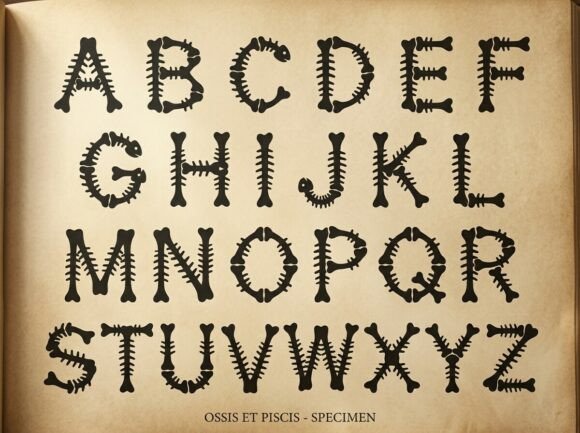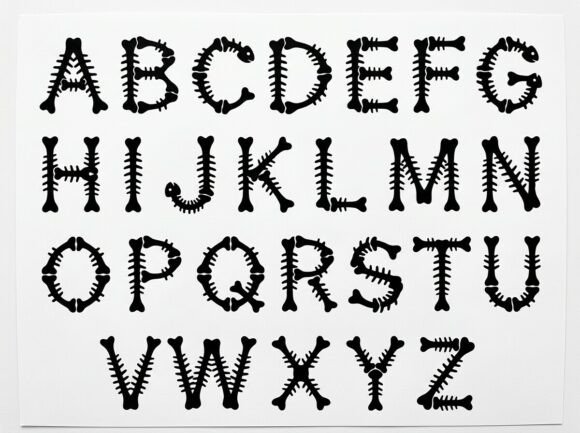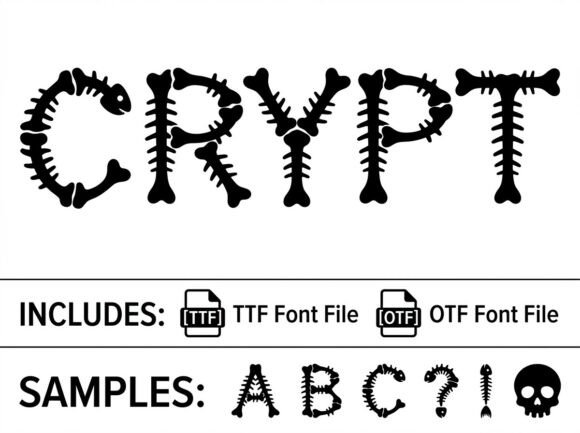
Unearth a Chilling Aesthetic with Crypt Font: The Ultimate Display Typeface for the Dark and Macabre
In the realm of typography, few fonts evoke the same level of eeriness and fascination as the Crypt font. This bone-chilling display typeface is meticulously crafted for those who dare to venture into the dark and macabre. Each letter in this unique font is constructed from anatomical silhouettes, featuring vertebrae, rib-like structures, and jointed bones that form a rhythmic, skeletal alphabet. The result is a raw, primeval silhouette that exudes an unyielding, skeletal strength, perfect for designers and crafters seeking to infuse their projects with a sense of handcrafted dread.
The Anatomy of Crypt Font
What sets Crypt font apart is its intricate design, where each letter is carefully constructed from anatomical elements. The vertebrae, rib-like structures, and jointed bones are not merely aesthetic choices; they are a deliberate design decision that gives the font its distinctive skeletal appearance. This attention to detail makes Crypt font an exceptional choice for projects that require a high level of uniqueness and character, such as horror movie titles, Halloween event branding, heavy metal album covers, and gothic-themed apparel.
Applications of Crypt Font
Crypt font’s versatility and distinctive aesthetic make it suitable for a wide range of applications. Here are a few ideas to get you started:
- Horror Movie Titles: Add a chilling touch to your horror movie titles with Crypt font. Its raw, primeval silhouette and high-contrast linework will set the tone for a terrifying cinematic experience.
- Halloween Event Branding: Create eye-catching Halloween event branding with Crypt font. Its skeletal alphabet will add a spooky flair to your posters, flyers, and social media promotions.
- Heavy Metal Album Covers: Give your heavy metal album covers a bold, edgy look with Crypt font. Its rugged, skeletal design will perfectly capture the essence of heavy metal music.
- Gothic-Themed Apparel: Design striking gothic-themed apparel with Crypt font. Its unique, handcrafted aesthetic will add a touch of darkness and mystery to your clothing and accessories.
- Haunted Attractions: Create an eerie atmosphere for your haunted attractions with Crypt font. Its chilling aesthetic will set the tone for a frightening experience.
- Dark Fantasy Novels: Add a touch of darkness and mystery to your dark fantasy novels with Crypt font. Its skeletal alphabet will perfectly capture the essence of your story.
Why Choose Crypt Font?
So, why choose Crypt font for your next project? Here are a few compelling reasons:
- Unique Aesthetic: Crypt font boasts a unique, skeletal aesthetic that will set your project apart from the rest.
- High-Contrast Linework: The font’s high-contrast linework adds depth and dimension to your designs, making them more visually appealing.
- Raw, Primeval Silhouette: Crypt font’s raw, primeval silhouette exudes a sense of strength and power, perfect for projects that require a bold statement.
- Handcrafted Dread: The font’s handcrafted aesthetic adds a sense of dread and unease, perfect for horror-themed projects.
In conclusion, Crypt font is an exceptional display typeface that is sure to unearth a chilling aesthetic in your designs. Its unique skeletal alphabet, raw primeval silhouette, and high-contrast linework make it perfect for a wide range of applications, from horror movie titles to gothic-themed apparel. Whether you are designing for a haunted attraction or a dark fantasy novel, Crypt font delivers a sense of handcrafted dread and unyielding, skeletal strength to your visual identity. So, if you’re looking to add a touch of darkness and mystery to your projects, look no further than Crypt font.